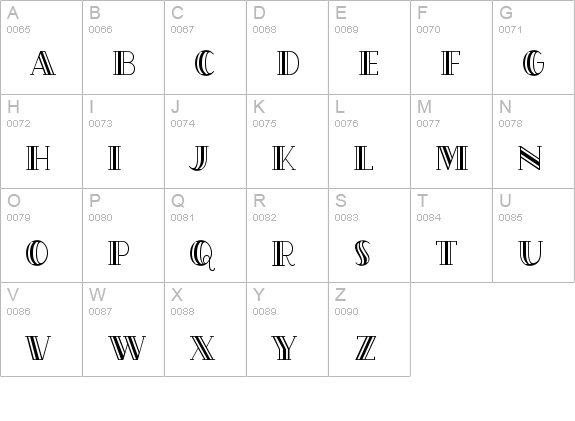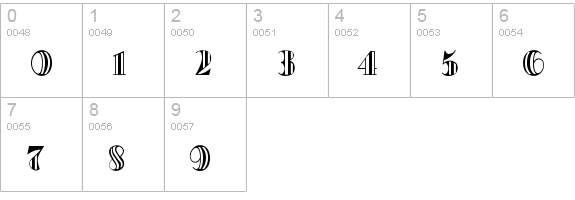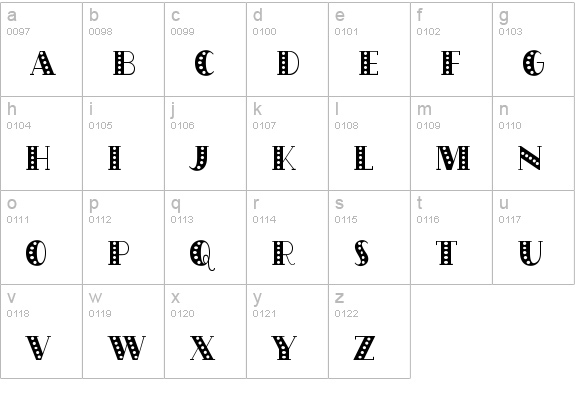
Hollywood Font Details
The Hollywood font is a stylish and elegant typeface that captures the glitz and glamour of the entertainment industry. With its bold and eye-catching design, this font is perfect for adding a touch of sophistication to any project. Whether you're creating posters, logos, or movie titles, the Hollywood font is sure to make a statement. Best of all, the Hollywood font is available for free download at FontsMarket.com. So you can add a touch of Hollywood magic to your designs without breaking the bank. Don't miss out on this fabulous font – get your hands on it today and let your creativity shine!